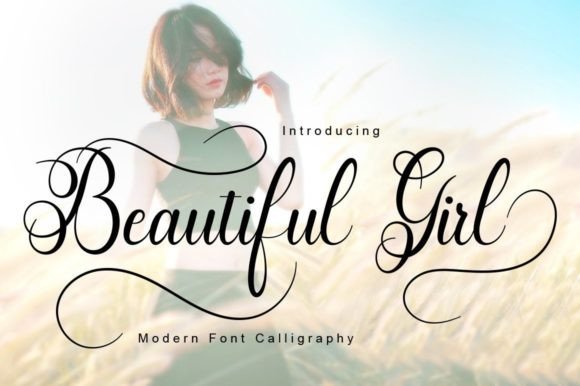
Behold, Beautiful Girl Font! As a stylish script font, it will inject a whiff of enchantment into your digital designs, taking them to new heights of elegance. Imagine your Cricut creations adorned with this font's graceful curves and alluring swashes. It'll turn your projects into breathtaking masterpieces, leaving your audience spellbound.
Designed with meticulous attention to detail by the skilled team at Patahilah Studio, Beautiful Girl is crafted to bring your creative visions to life. Its smooth, flowing characters exude sophistication and charm, adding a touch of luxury to any design element. Transform your invitations, logos, social media graphics, and wedding stationery into captivating works of art.
Whether you're a seasoned crafter or just starting your creative journey, Beautiful Girl is the perfect font for you. Its user-friendly nature makes it easy to work with, allowing you to effortlessly create stunning designs that will leave a lasting impression.
Make Beautiful Girl your font of choice today and embark on a creative adventure like never before. Embrace the elegance, romance, and modernity that it brings, and let your designs blossom into captivating visual masterpieces.